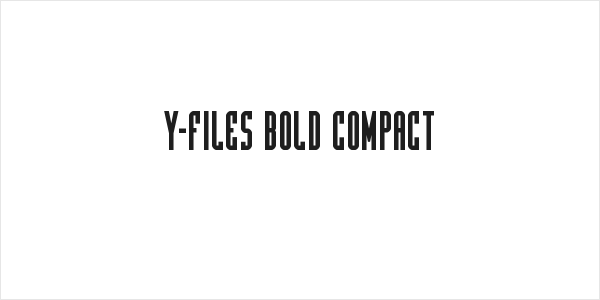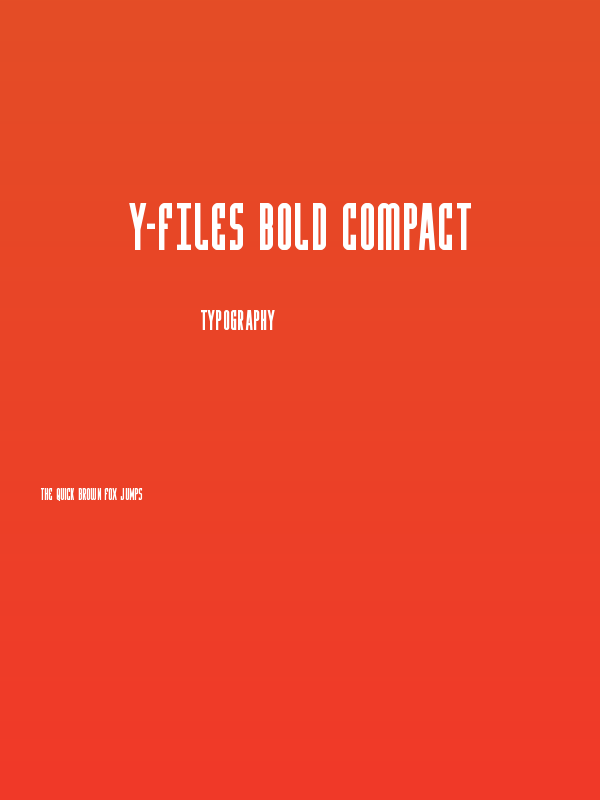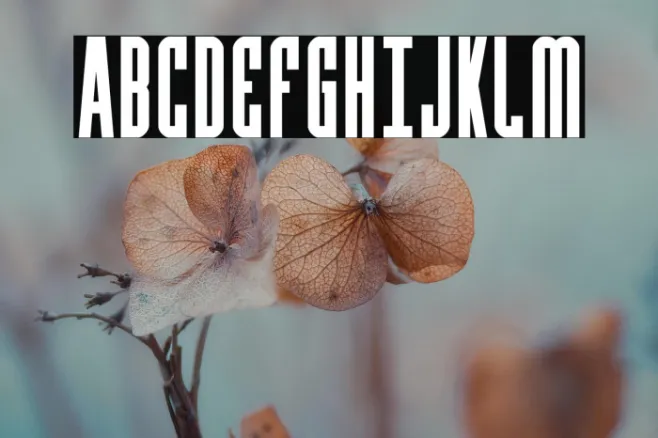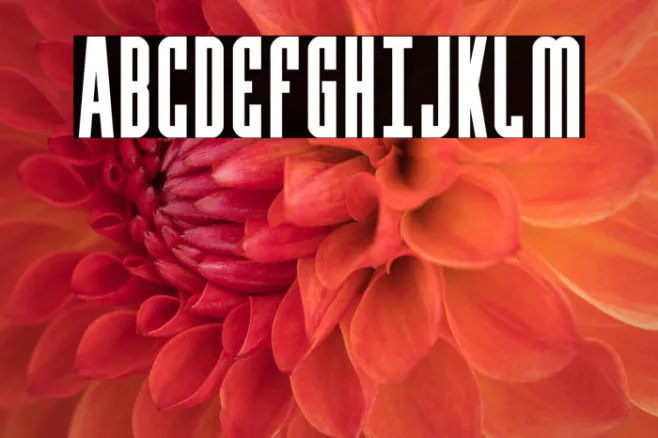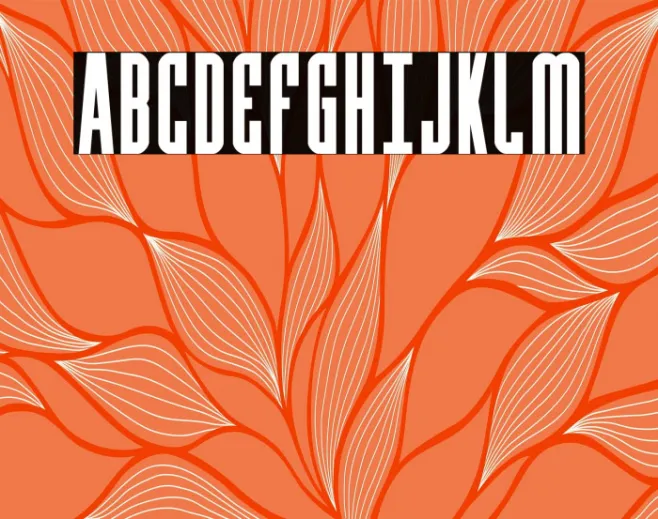
Y-Files Bold Compact Font
Y-Files Bold Compact Description
This font features a bold and compact design, characterized by its tall, narrow letterforms and strong vertical emphasis. The uppercase letters are particularly striking, with a uniform height and minimal spacing between characters, creating a cohesive and impactful appearance. The numerals and special characters maintain the same boldness, ensuring consistency across all elements. The overall style is modern and assertive, making it ideal for projects that require a strong visual presence.